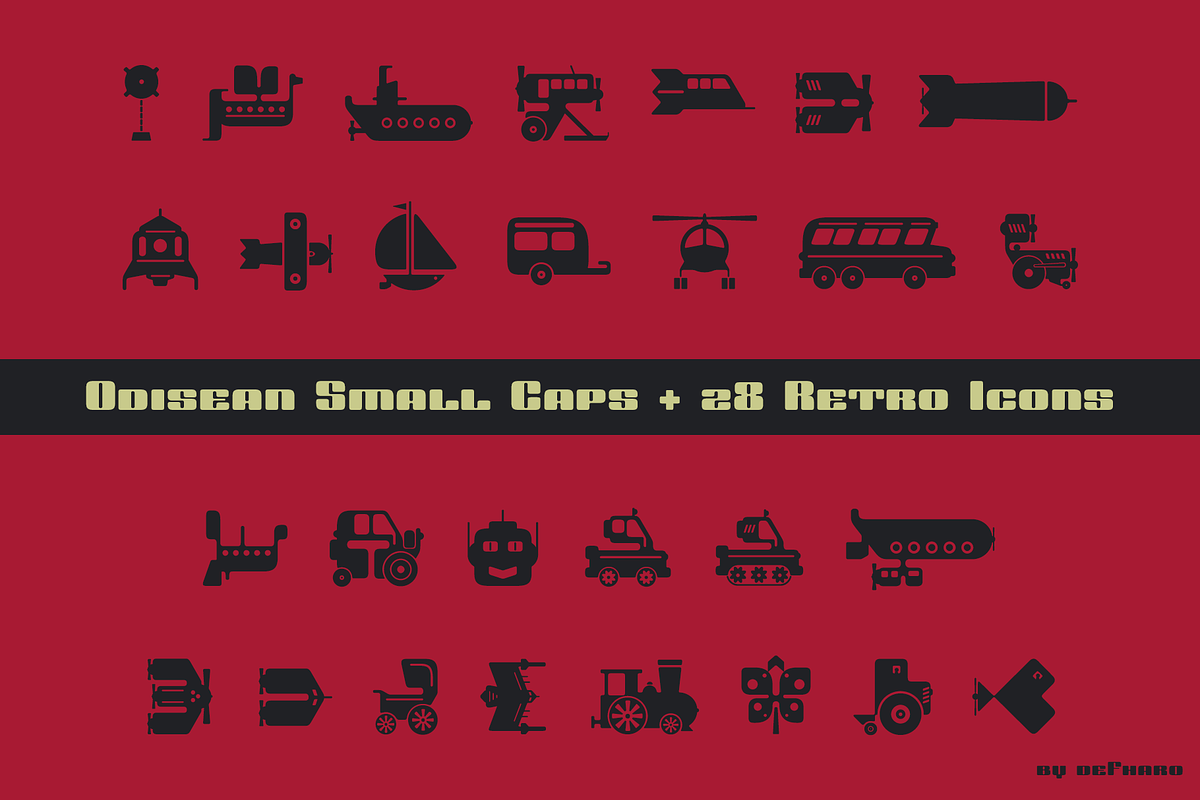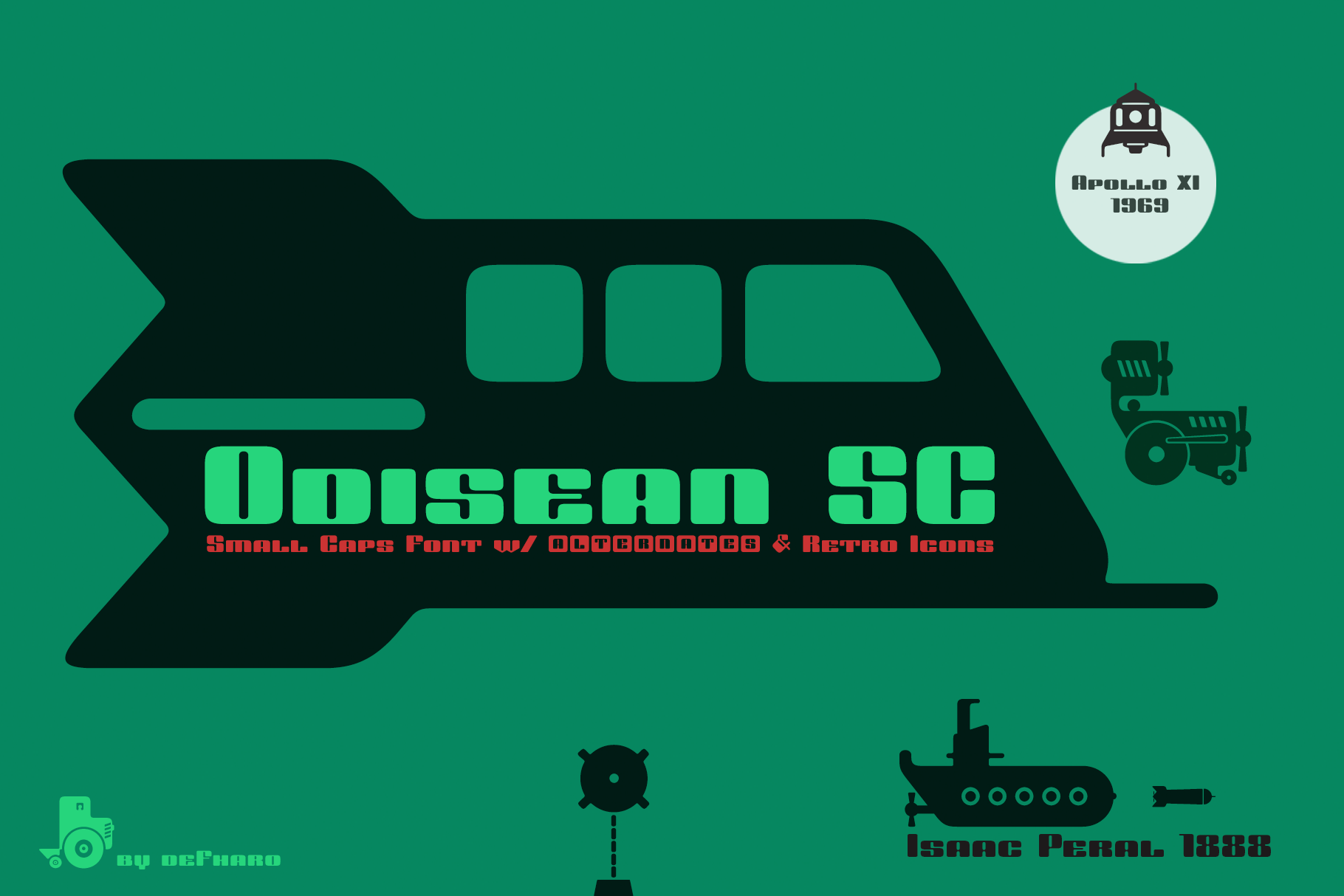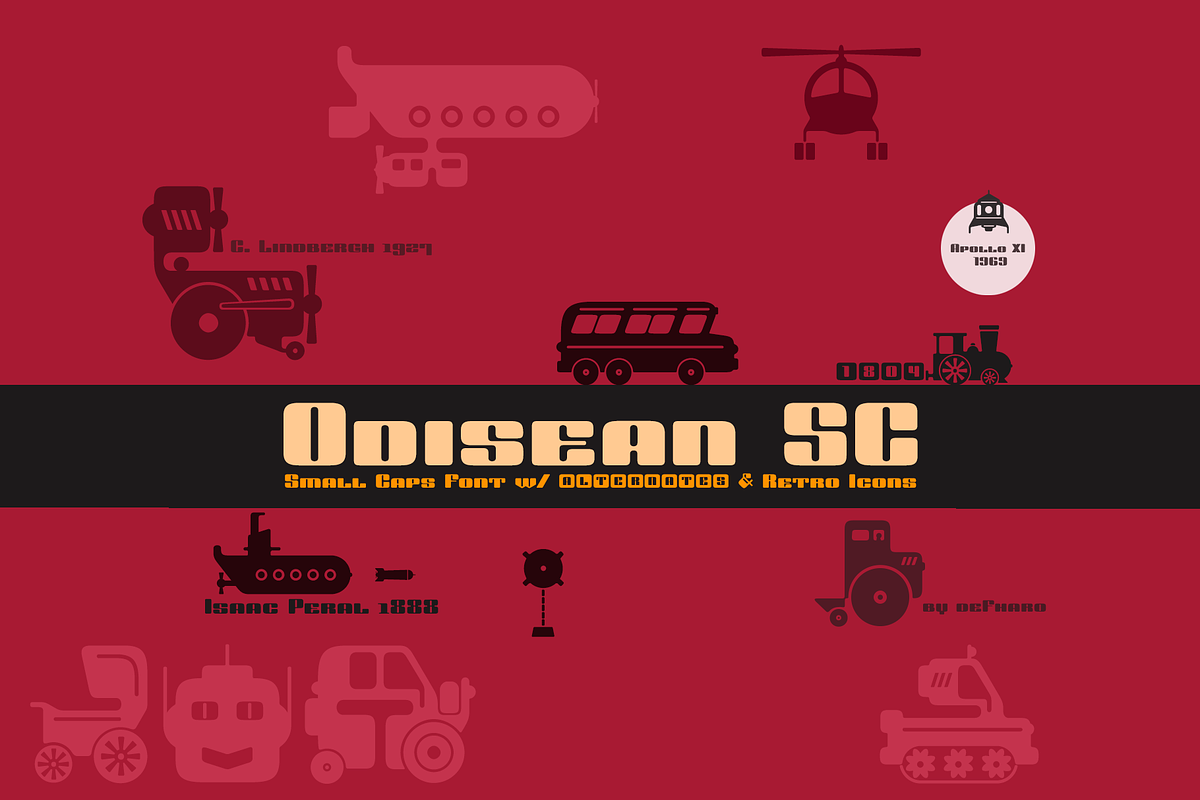
Odisean Small Caps font w/ 28 icons
Odisean Small Caps Font w/ Retro Icons, a trip to nostalgic technology
The Odisean Tech is designed for large sizes with retro style, including alternative lettering and retro transportation icons.
Its rounded finish and marked contrast between antlers evoke the charm of bygone eras. In addition, it has a collection of retro icons accessible through OpenType: Small Caps. Letter proportions are multiples of 8, ensuring exceptional visual harmony, while metrics and kerning use values multiples of 8 for impeccable legibility and aesthetics. Discover Odisean and revive retro nostalgia in your designs.
- - Odisean Small Caps bring elegance and versatility to your designs with their small capital letters.
- 28 Retro Icons (Accessible icons like Small Caps)
- Odisean Small Caps font includes the symbol of Bitcoin and currency symbols.
- OpenType Features: Additional languages, All Alternates, Alternate Annotation Forms, Bitcoin, Capital Spacing, Contextual Alternates, Denominators, Discretionary Ligatures, Extended Fractions, Historical Forms, Inferiors, Kerning, Localized Forms, Numerators, Oldstyle Figures, Ordinals, Scientific Inferiors, Slashed Zero, Small Capitals, Small Capitals From Capitals, Standard Ligatures, Stylistic Set, Subscript, Superior letters, Superiors, Superscript, Titling alternates.